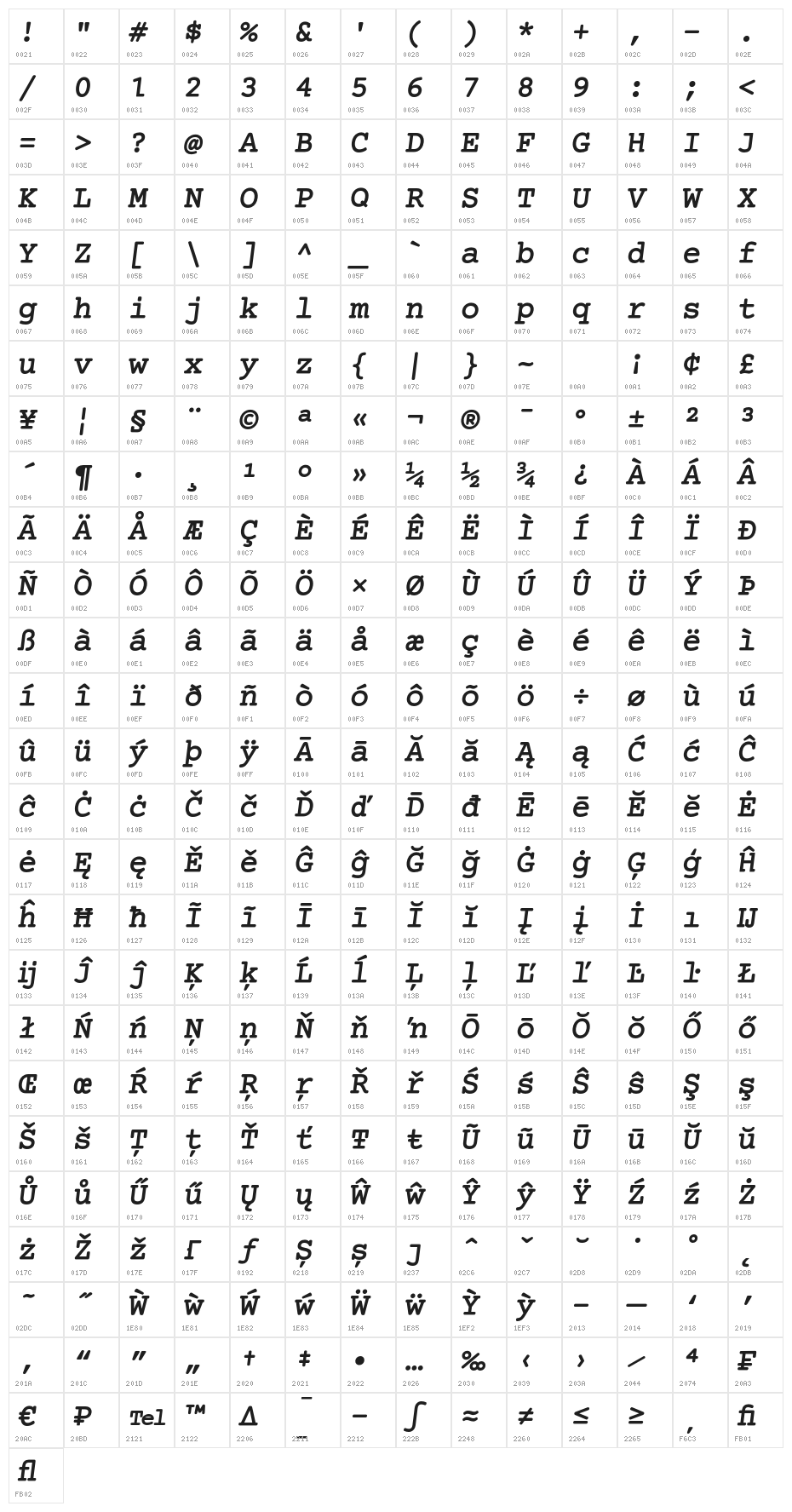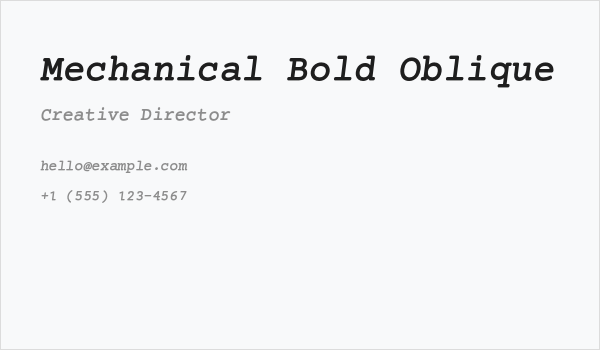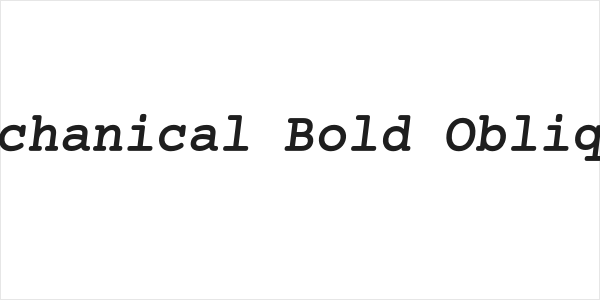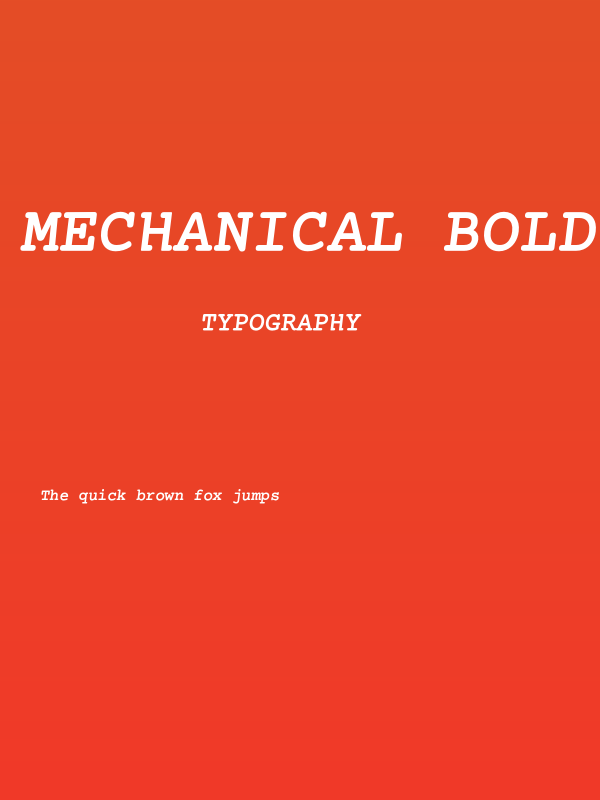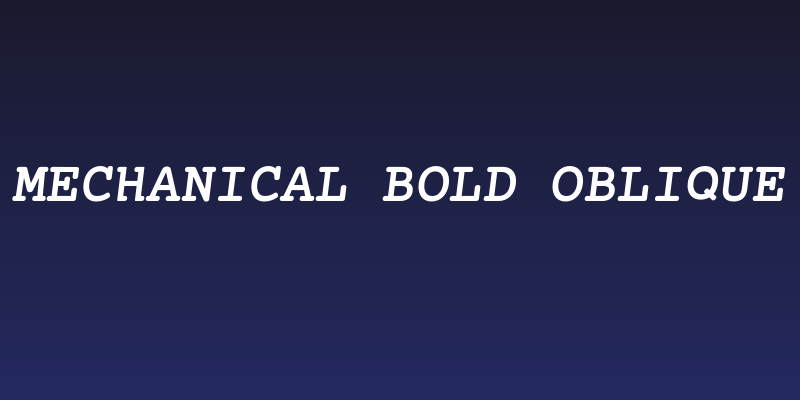
Mechanical Bold Oblique Font
Mechanical Bold Oblique Description
This font exhibits a bold and oblique style, characterized by its strong, mechanical appearance. The letters are slanted, giving a dynamic and forward-moving impression. The strokes are thick and consistent, providing a robust and sturdy look. The serifs are prominent, adding a touch of classic elegance to the otherwise modern design. The overall structure is clean and precise, making it suitable for impactful headlines and attention-grabbing text. The numerals and special characters maintain the same boldness and slant, ensuring uniformity across all characters.
Mechanical Bold Oblique